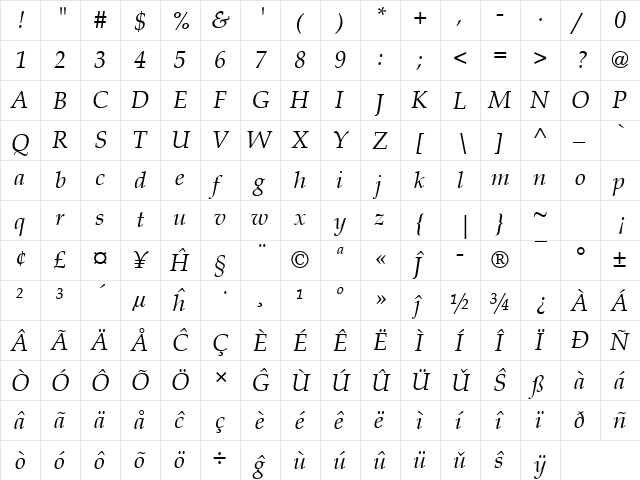
Book Antiqua Eo Italic
Design Context for Book Antiqua Eo Typeface
Book Antiqua Eo takes a measured approach to typography — its balanced proportions and neutral character make it a reliable workhorse for both digital and print work. Its italic angle brings a sense of urgency and motion to the letterforms.
Pro Tip: Try Book Antiqua Eo for annotation and caption copy alongside an upright companion — the contrast in angle creates a dynamic but ordered typographic system.